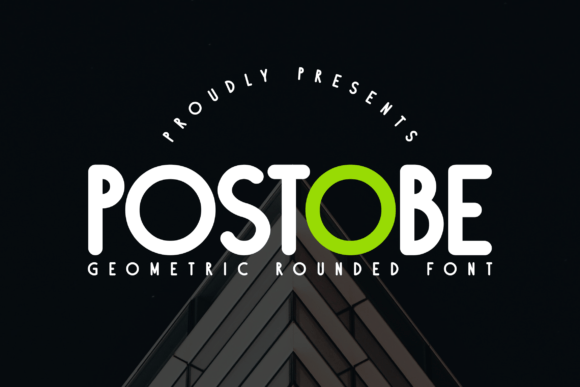
Unleash your creativity with Postobe, the ultimate hipster font that speaks louder & louder. This geometric gem is crafted to turn your designs into extraordinary creations. Enter an artistic paradise where unconventional fonts rule.
Postobe Sans Serif: A Journey to a New Aesthetic
Step into the world of Postobe Sans Serif, a stunning font family that celebrates non-conformity. This remarkable font boasts three distinct sizes, including shorter, normal, and wider glyphs, all meticulously developed to unlock the geometric magic of every letter intersection. Postobe is not just a font; it's an art form, a kaleidoscope of characters waiting to be explored.
Unleash the Creative Within
With Postobe, your imagination becomes the limit. Whether you're designing construction projects, crafting captivating print ads, or creating packaging that demands attention, Postobe is your go-to font companion. Its versatility knows no bounds, allowing you to express your unique vision in a multitude of settings.
Embrace the Extraordinary
Postobe is the very definition of individuality. Its bold lines, sharp angles, and unconventional geometry create a visual experience that captivates and inspires. Let your words dance across the page in a symphony of creativity, leaving an enduring impact on all who behold them.
Join the Postobe Revolution